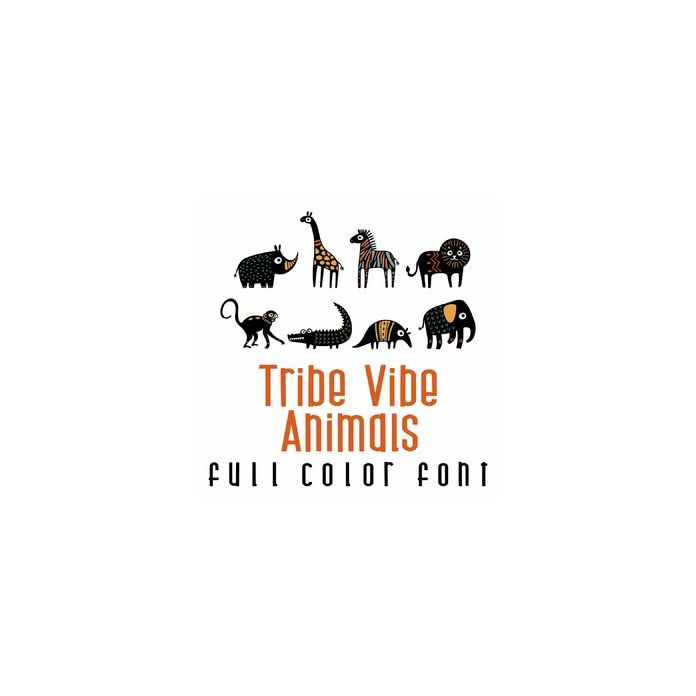
This adorable full color doodlebat font features tribal design animals. Perfect for cards, crafts, gifts, decor, scrap book pages, planner stickers and more!